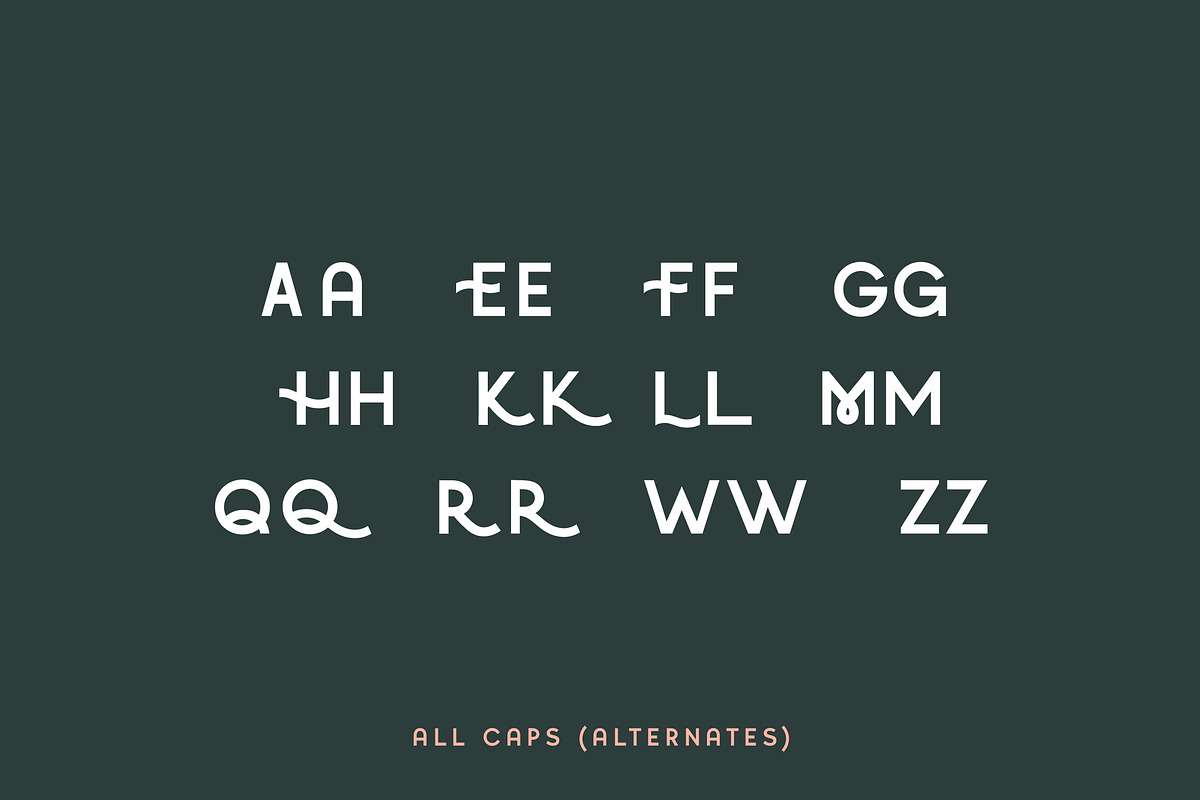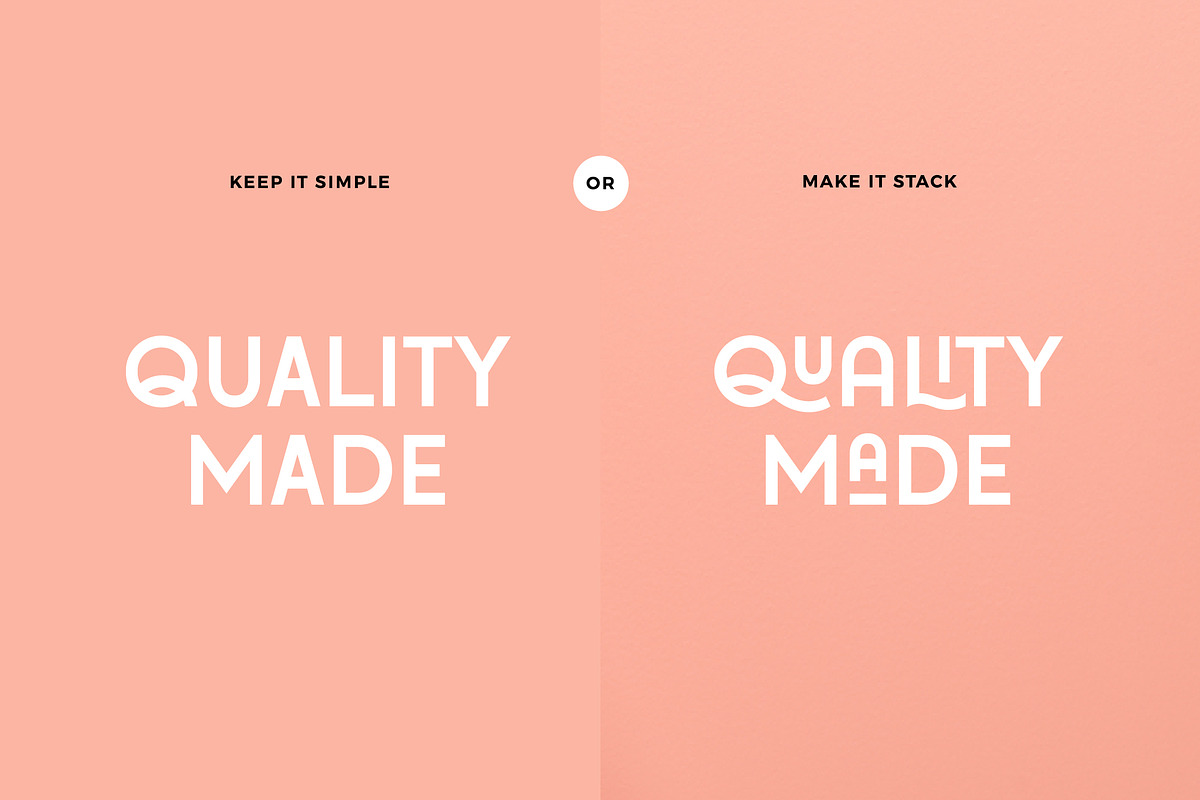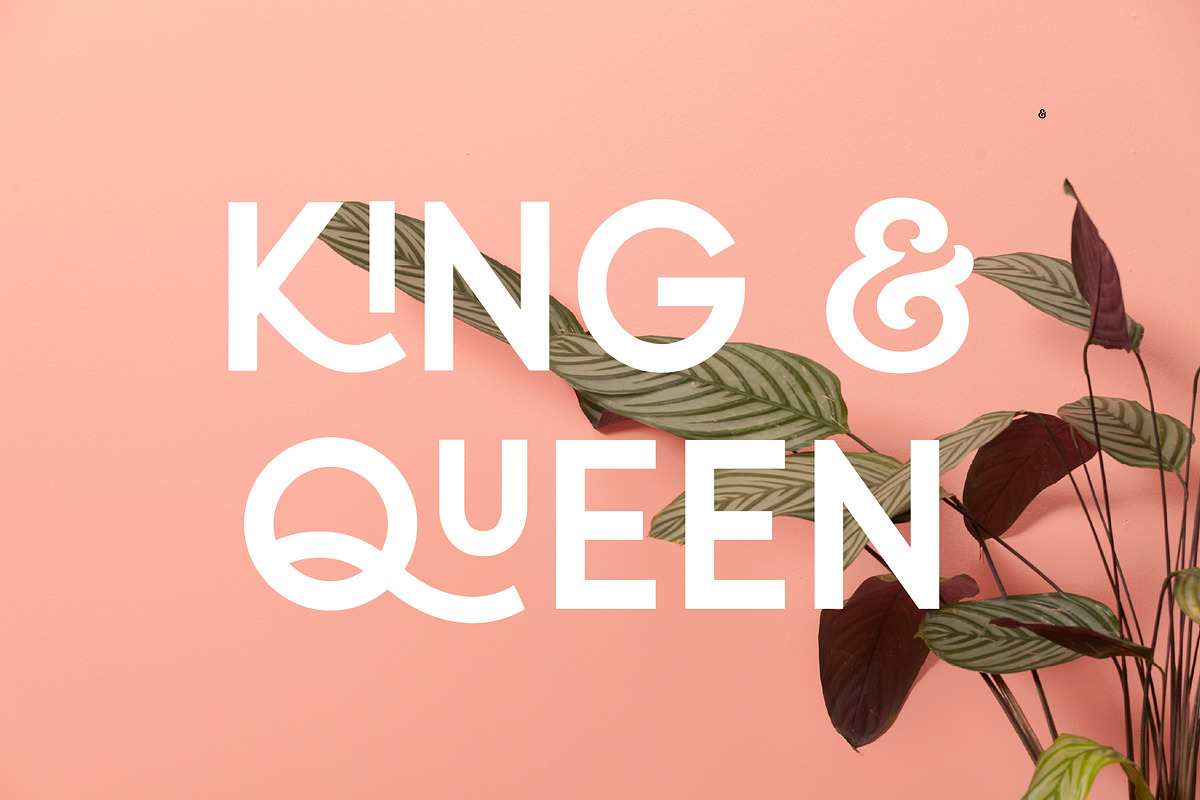
Quirk Font
Quirk is a fun, stackable display font that lives up to its name! The way you can uniquely stack different parts of this font makes it super fun to work with. It’s perfect for all sorts of creative projects, from logos and posters to social media graphics and more.
Feature:
• All Caps Alternate Characters
• Small Caps Alternate Characters
• Numbers
• Special Characters